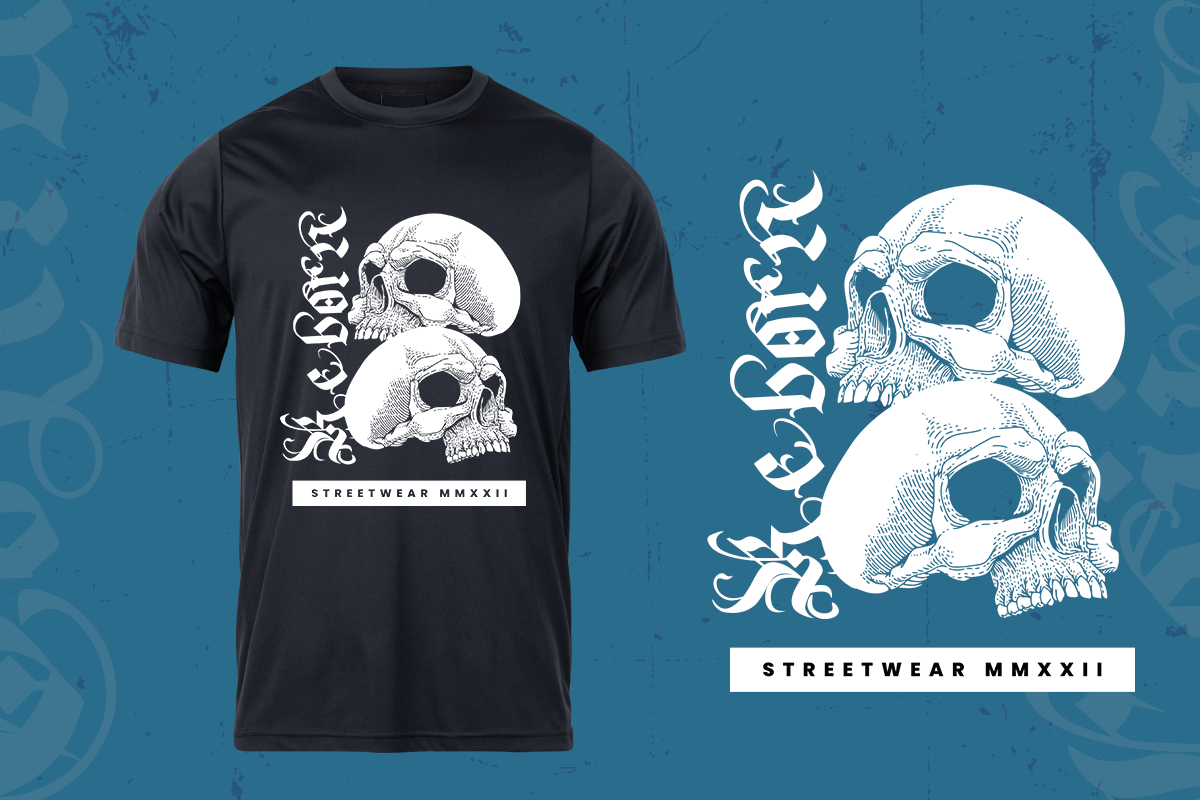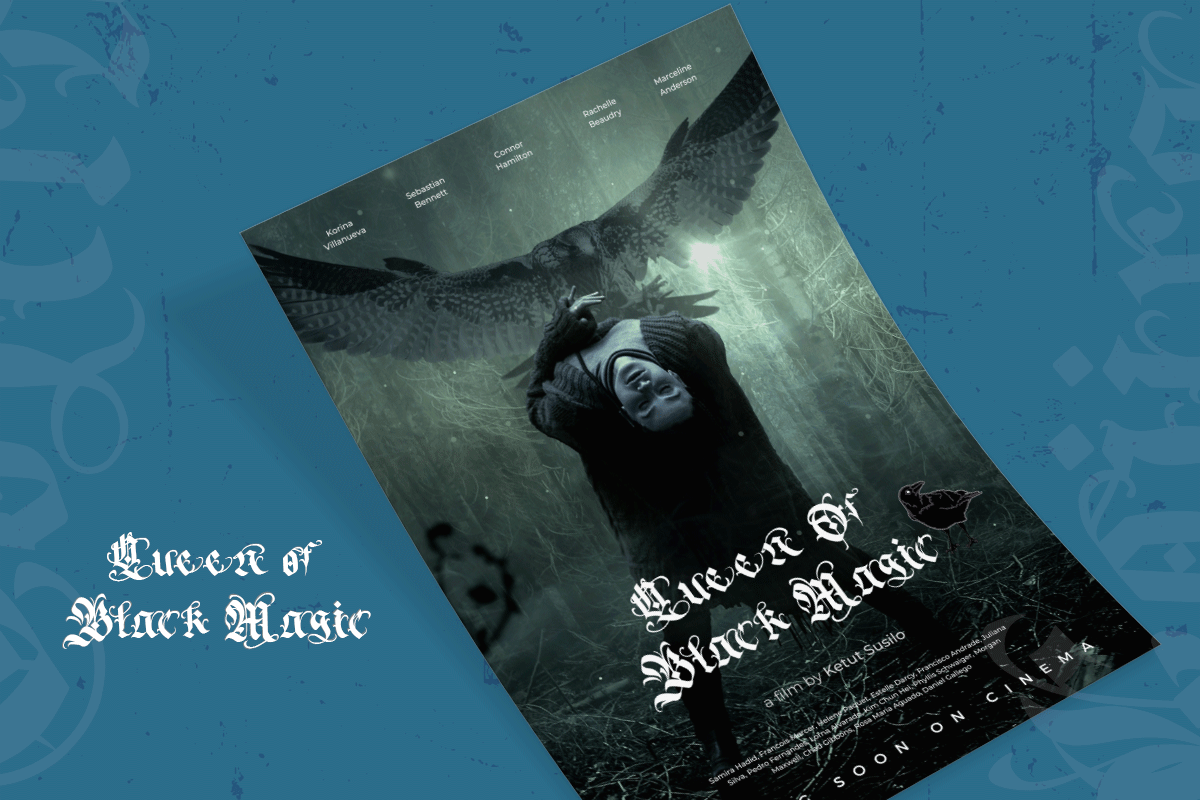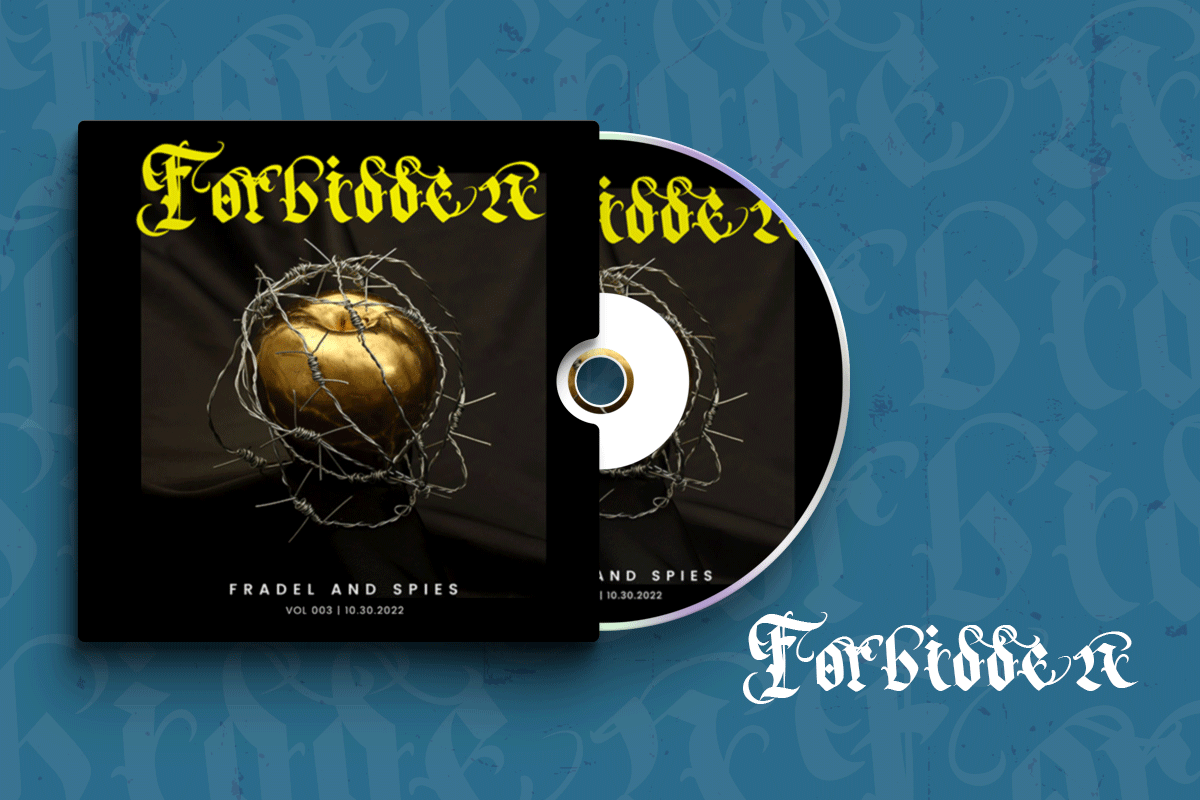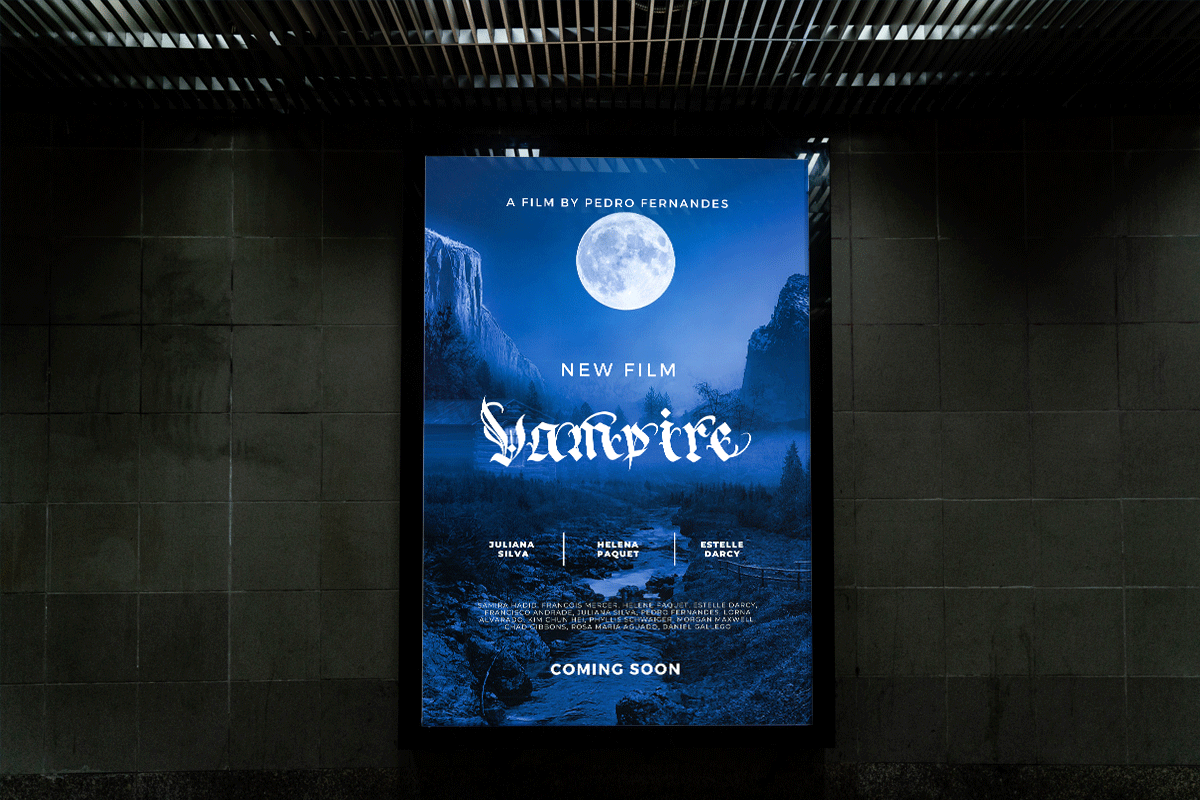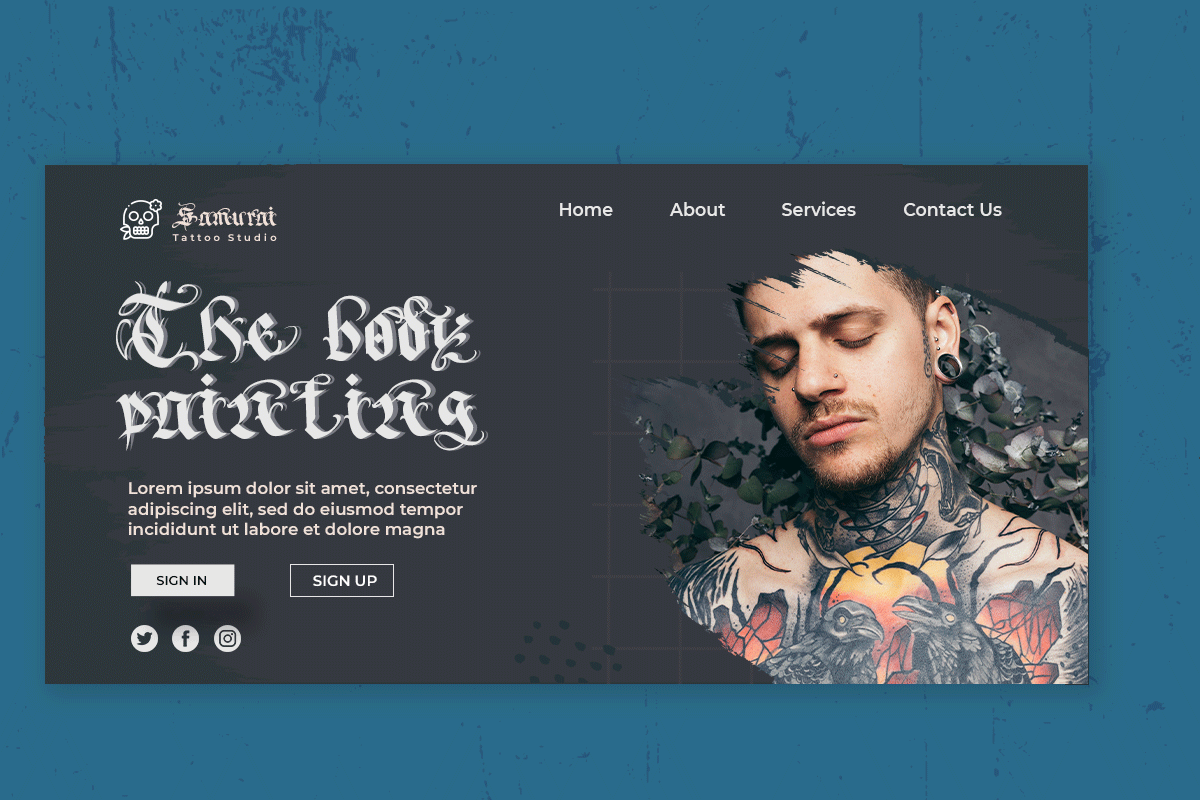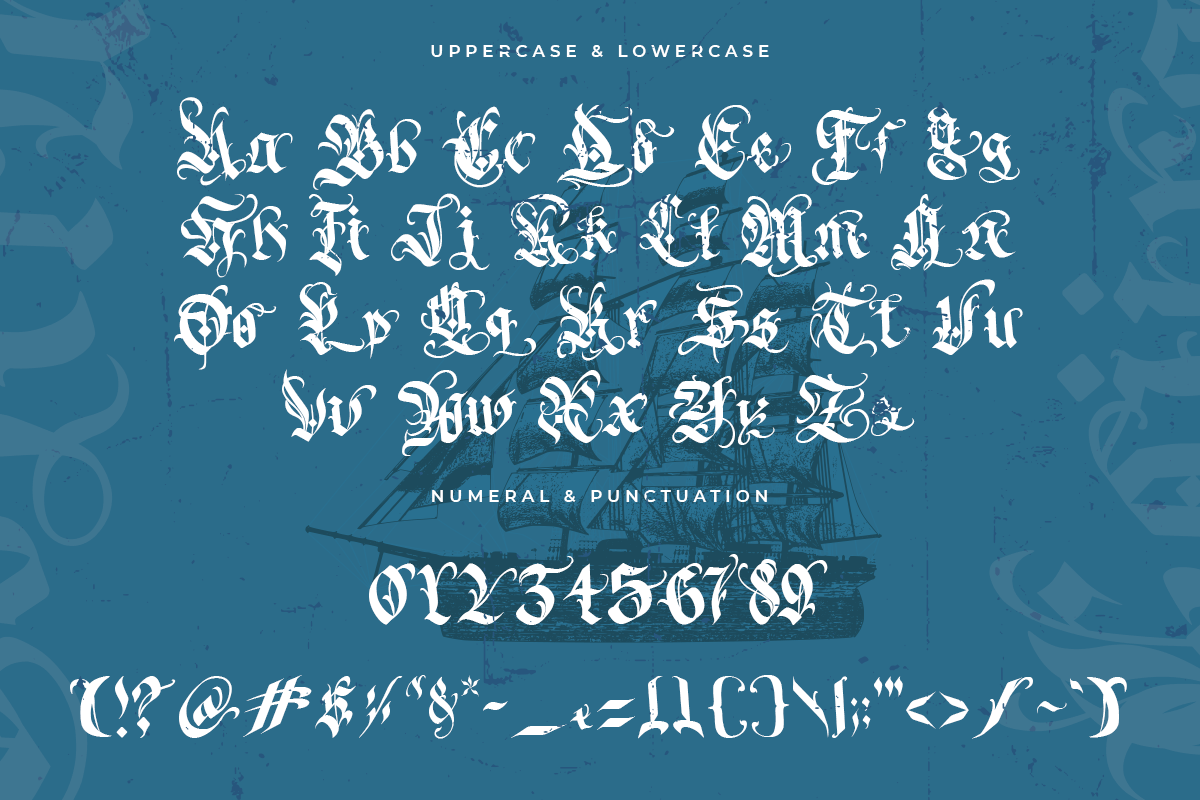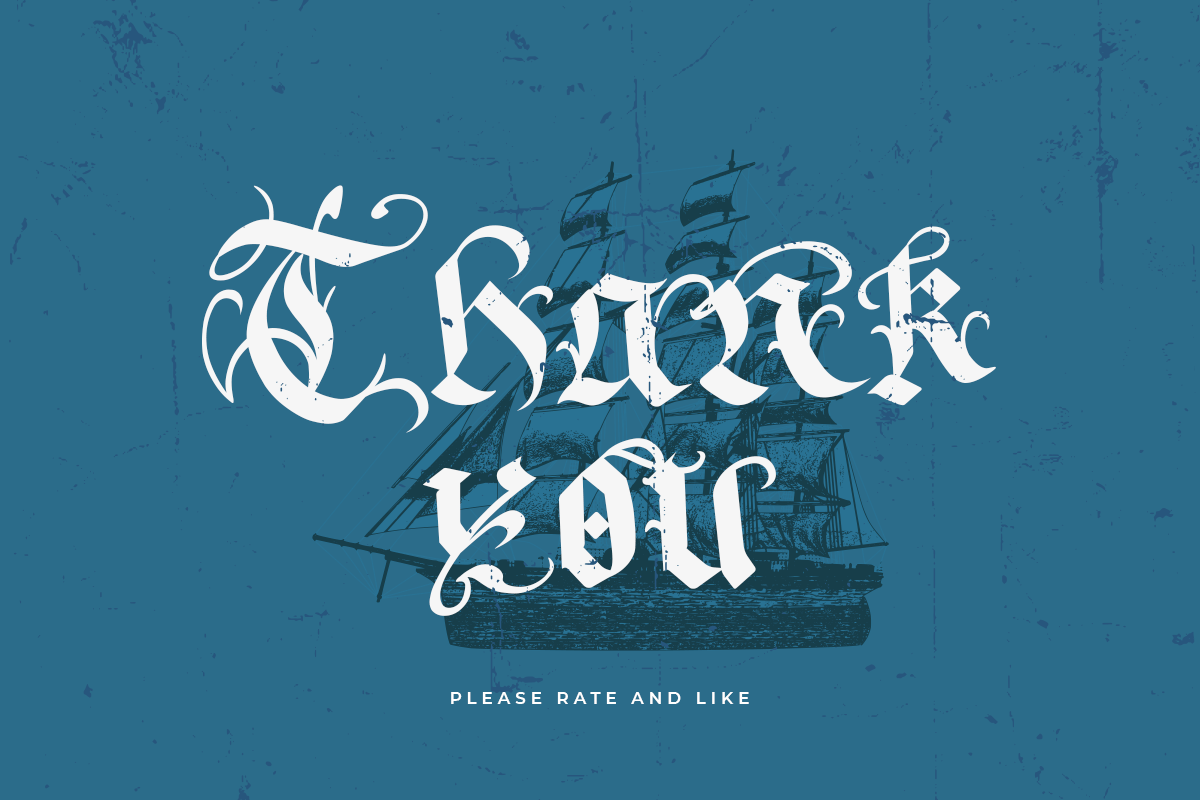
Cojira Blackletter Font After creating many typefaces, Font Kong is back again with a new font type, Cojira Blackletter font. Seeing from all angles, like the shape and the impression it creates, this font is part of the modern Blackletter font. It was made with inspiration from Middle Eastern calligraphic art. Cojira Blackletter Font is here to bring new colors to the blackletter world. Cojira Blackletter Font was created to add a wide selection of ready-to-use online fonts for digital and print use. The Cojira Blackletter Font has a shape that suggests it's part of Blackletter Middle East, inspired just by looking at it. If you pay close attention, you can feel the significant influence of Middle Eastern calligraphy art in this font. Cojira Blackletter Font has an overall characteristic where the font is made of sharp, thick, and thin lines. This font is branched with curved lines and small circles at the ends. All design elements create structure and symbolic meaning instead of a naturalistic representation of ideas. From that explanation, we can understand that this font is not only part of the Blackletter Font family but also belongs to the display and decorative font category. Cojira Blackletter Font is not designed to use for large texts or with large font sizes. Because seeing the shape is quite complicated, it is an eligible font. As well as easy/difficult-to-read fonts, we can imagine how these fonts fit on various equipment. Cojira Blackletter Font is one of the best fonts to use for tattoos. It can also be combined with frightening products and mystery themes. This font also works when used to create horror movie posters, and horror-themed parties or used on the names of some metal bands and their album covers. Not only that, but the Cojira Blackletter Font can also be combined as a trademark, such as T-shirts, jackets, and denim pants. Cojira Blackletter Font is a font that is also suitable for product branding. This font can use for product branding and product advertising. The unique shape of the font demands the reader to pay extra attention and focus on the moment. However, it is this chaotic energy that is the hallmark and identity of this artistic font. When typed in dark colors, this font creates a stunning gothic atmosphere. Looking at the compatibility of these fonts, it is hoped that the presence of the Cojira Blackletter Font can answer your confusion about having the most suitable font. For your social media needs, you can use and install fonts in our Blackletter font collection to use as Instagram fonts, Facebook fonts, and Twitter fonts. Like this font application, you can use it in several applications, such as Figma Fonts, Canva Fonts, Freepik Fonts, Adobe Fonts, Google Fonts, Instagram Fonts, and Social Media Fonts.